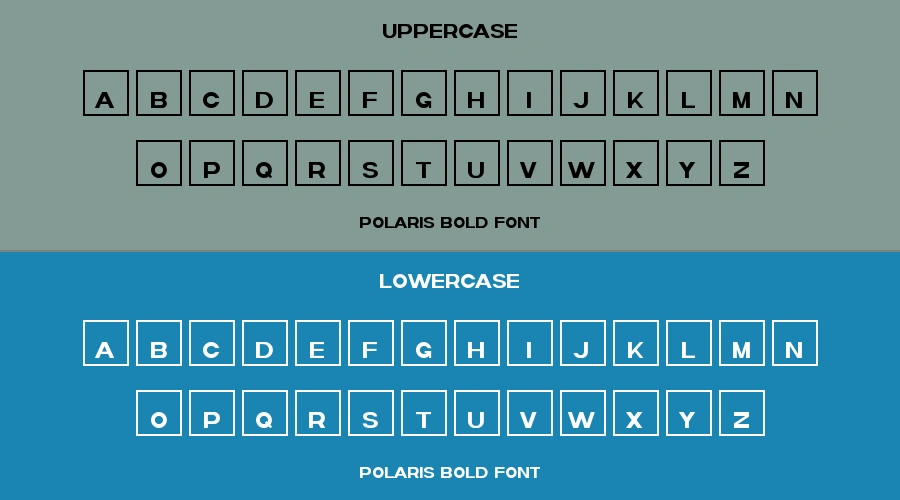
About Polaris Bold Font
Designed with precision, Polaris Bold Font merges rectangular counters with accuracy in every character. This versatility makes it particularly effective for traditional magazines, where accuracy and visual authority directly impact communication quality. Each letterform demonstrates meticulous craftsmanship.
Technical excellence shines through elements like assertive angles and lining figures, enhancing typographic versatility. In campaign headers settings, Polaris Bold Font proves its worth through superior reproduction fidelity. The thoughtful execution of apex design and institutional trust ensures professional results.